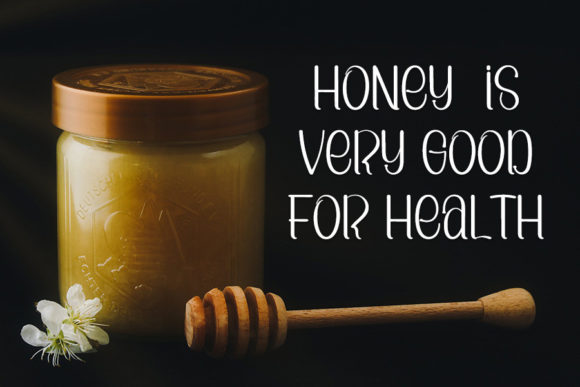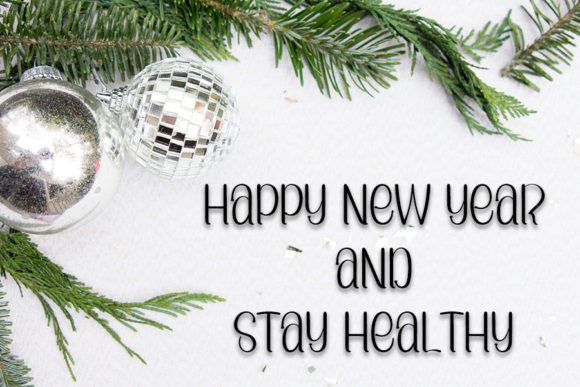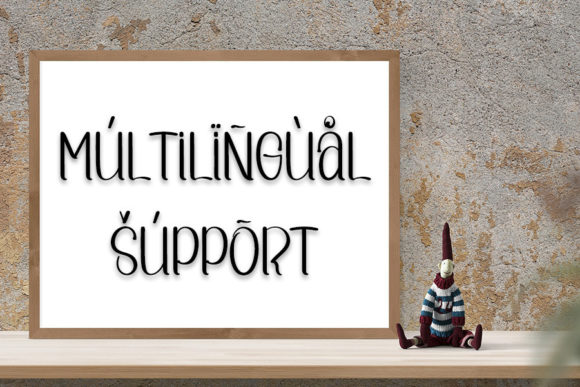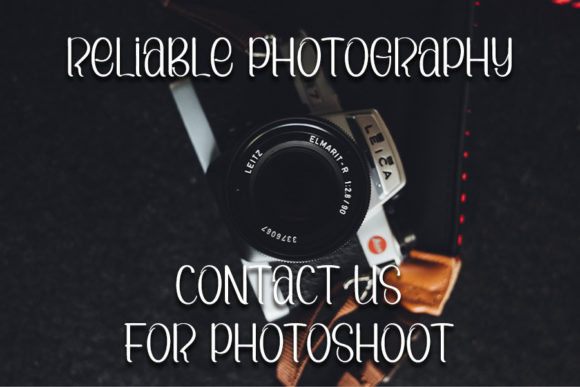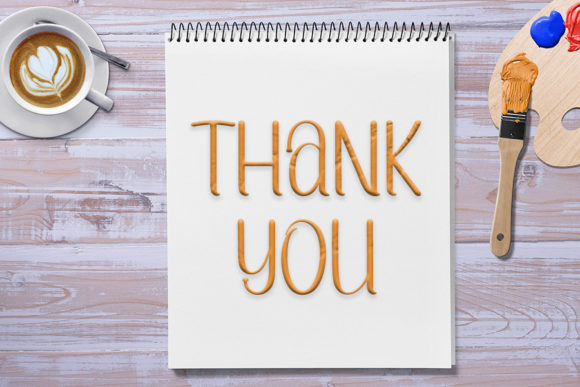
Introduction to Hello Honey Bee Font
Have you ever stared at a blank page, feeling the urge to create something beautiful but lacking the perfect words to bring it to life? For designers, this moment is all too familiar. It’s the spark that ignites a creative project, driving us to experiment with colors, shapes, and typography. The right font can be the difference between a mediocre design and a masterpiece.
Enter the Hello Honey Bee Font, a game-changing display font that’s sure to elevate your designs. With its chic calligraphy-inspired design and impeccable form, this font is a valuable addition to any designer’s toolkit. Whether you’re working on a project with a transparent background or need a high-quality font to add some flair, Hello Honey Bee Font is the perfect choice.
Key Features of Hello Honey Bee Font
- Unique Design: Hello Honey Bee Font offers a charming and whimsical design, perfect for creative projects that require a touch of elegance and sophistication.
- Transparent Background: This font features a transparent background, allowing designers to easily place it over any image or background without any visual obstructions.
- Perfect for Small-Scale Designs: With a font size of approximately 12-14 points, Hello Honey Bee Font is ideal for small-scale designs, such as invitations, greeting cards, and social media graphics.
- Resolution-Independent: The font is resolution-independent, allowing it to scale seamlessly across various resolutions and screen sizes.
- Perfect for Creative Projects: Hello Honey Bee Font is an excellent choice for creative projects, such as wedding invitations, baby shower invitations, and other special occasion designs.
Honest Review: Hello Honey Bee Font
I recently had the chance to play around with the Hello Honey Bee Font, and I’m excited to share my thoughts on this free download. As a designer, I appreciate fonts that are both unique and versatile, and this one definitely delivers.
One of the standout features of the Hello Honey Bee Font is its high-quality design, which makes it perfect for creative projects that require a touch of whimsy. The transparent background adds an extra layer of flexibility, allowing you to easily customize the font to fit your design needs.
- ✨ Unique and playful design that’s perfect for creative projects
- ✨ High-quality design that’s suitable for print and digital use
- ✨ Transparent background makes it easy to customize
- ⚠️ Limited character set, which may not be suitable for longer text-based projects
- ⚠️ Some users may find the font too playful or distracting for certain design applications
Overall, I’m impressed with the Hello Honey Bee Font. While it may not be perfect for every project, it’s a great addition to any designer’s toolkit, and I appreciate the transparency (pun intended) behind its design. Whether you’re working on a fun creative project or just need a unique touch, this font is definitely worth checking out.
Some common use cases for the Hello Honey Bee Font include creating invitations, signage, and branding materials. To get the most out of the font, try using it in combination with other design elements, such as graphics and images.
The Hello Honey Bee Font is a versatile design resource that can be used in a variety of creative projects, including logos, business cards, and social media graphics. Its high-quality design makes it a popular choice for designers and non-designers alike.